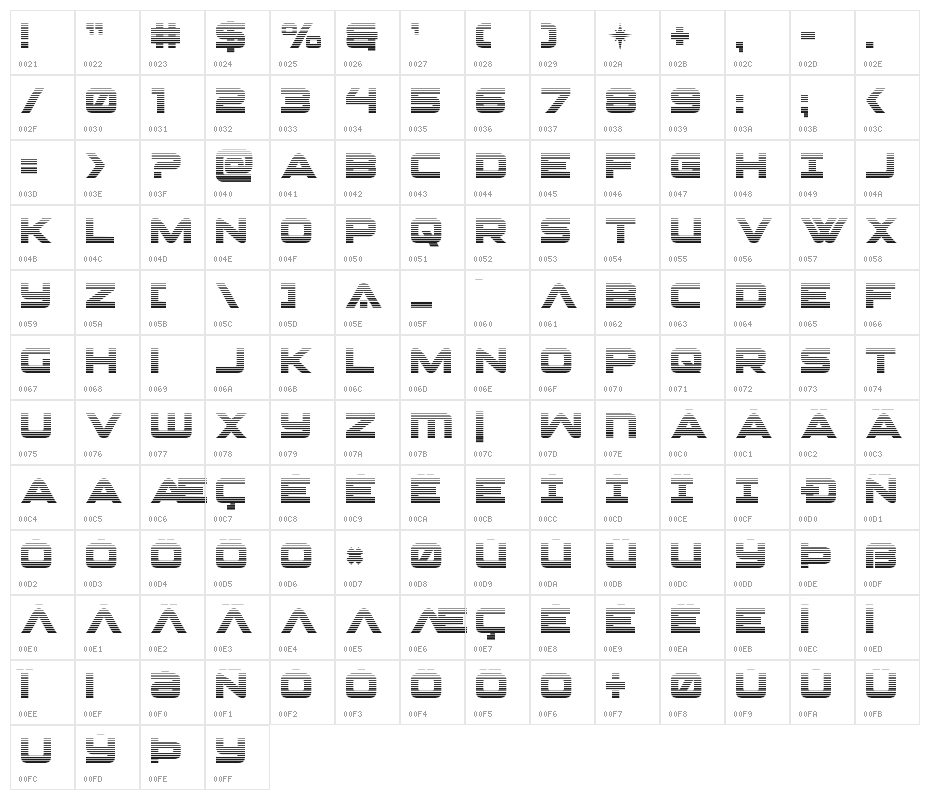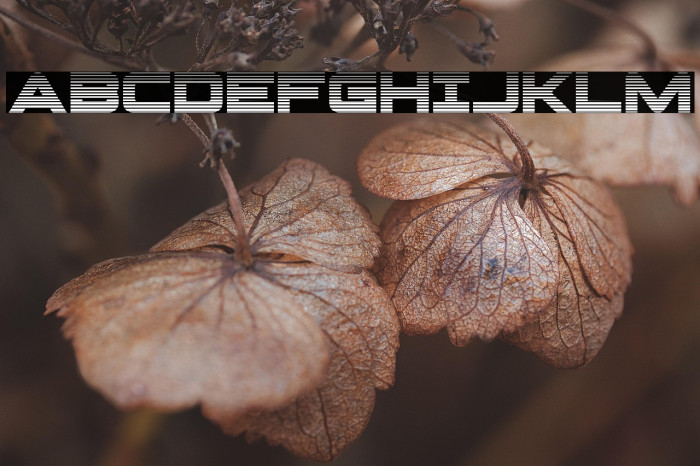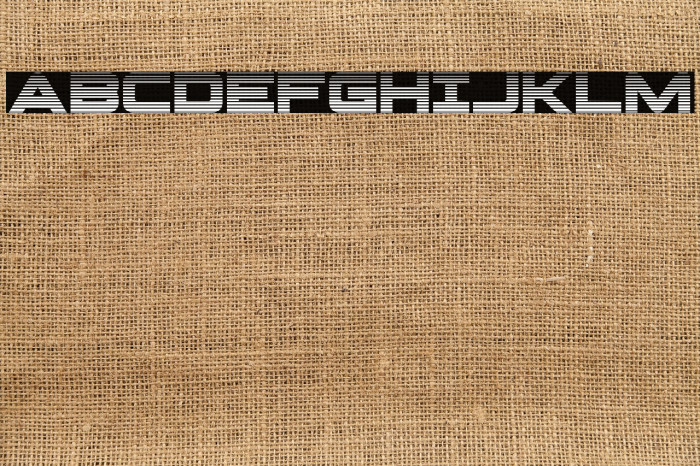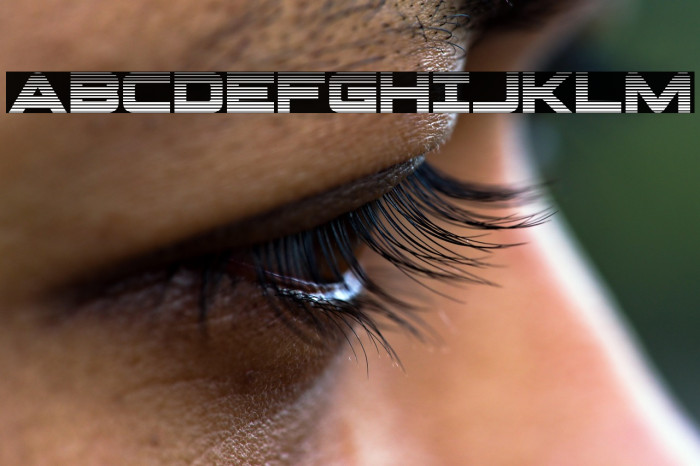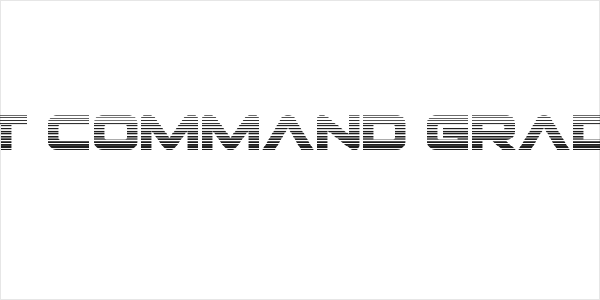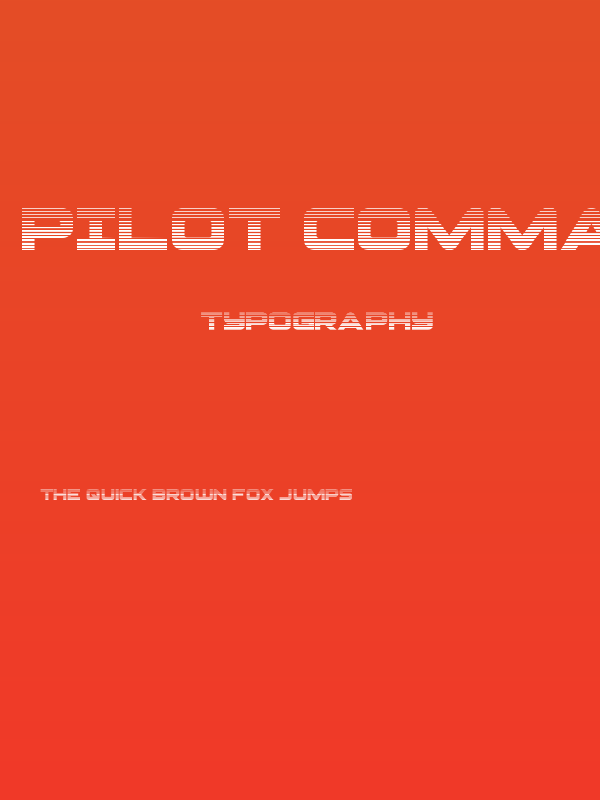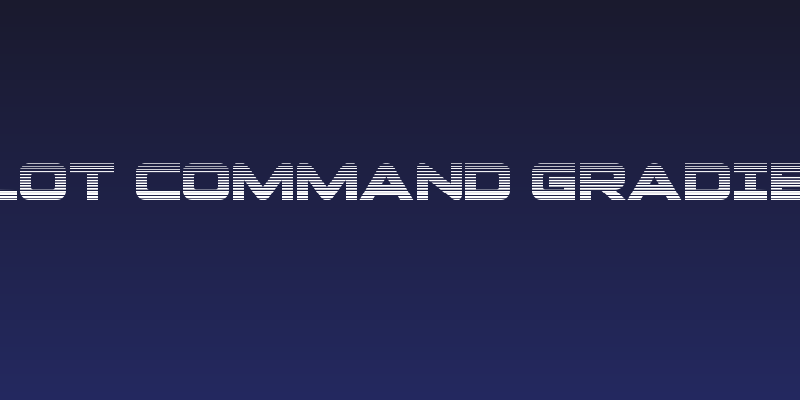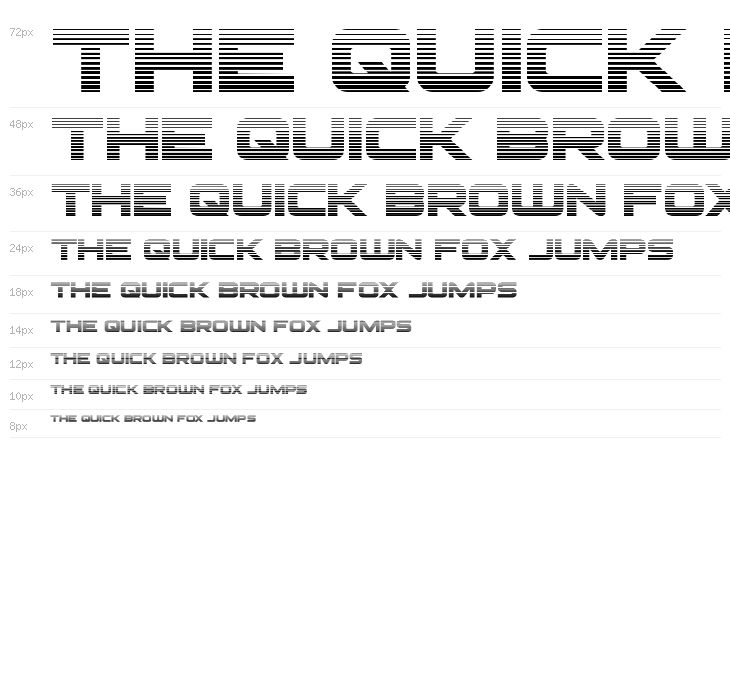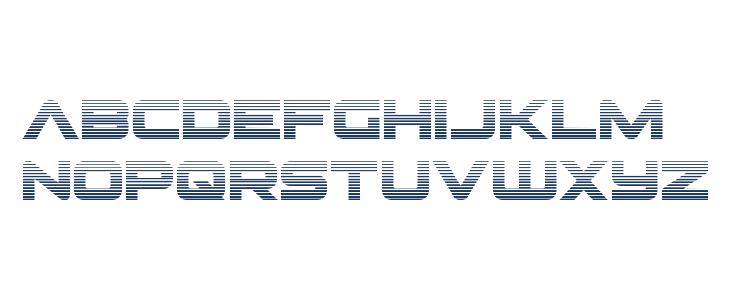
Pilot Command Gradient Font
Pilot Command Gradient Description
This font features a futuristic and dynamic design characterized by horizontal lines that create a gradient effect across each character. The uppercase letters are bold and striking, with a geometric structure that emphasizes sharp angles and clean lines. The font's unique style is further enhanced by its striped pattern, which adds a sense of movement and energy. The numerals and special characters maintain the same aesthetic, ensuring consistency throughout. This font is ideal for projects that require a modern and tech-savvy appearance.